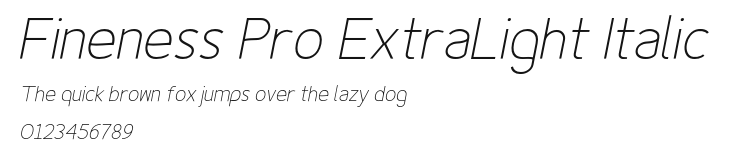
• Font Name: Fineness Pro ExtraLight Italic
• Full Font Name: Fineness Pro ExtraLight Italic
• Designer: Asley Cruz
About Fineness Pro ExtraLight Italic.otf
Fineness Pro ExtraLight Italic.otf is a modern, elegant sans-serif font designed for ultimate readability and visual harmony. Perfect for branding, headlines, web design, and print materials.